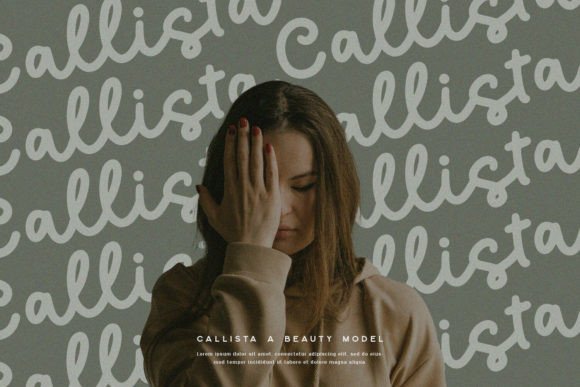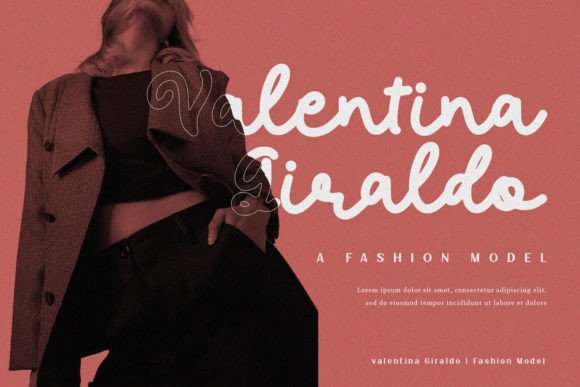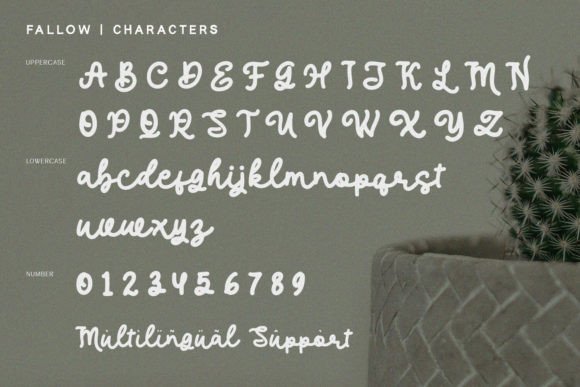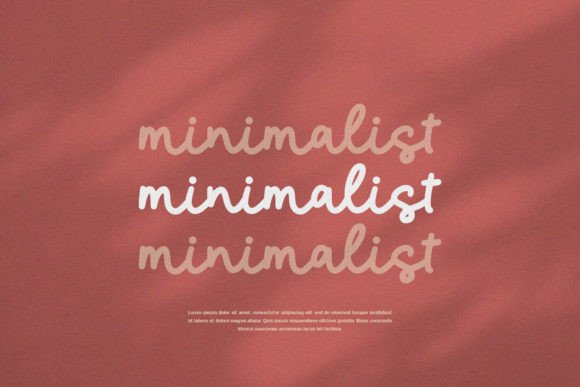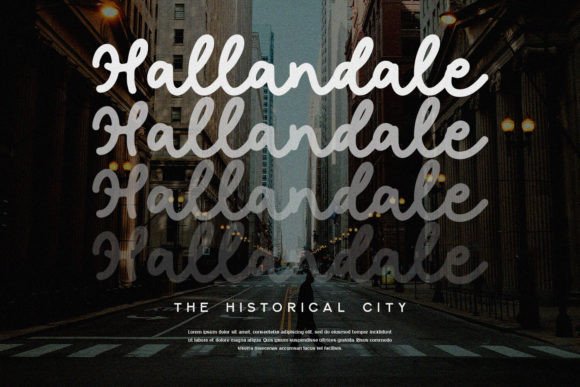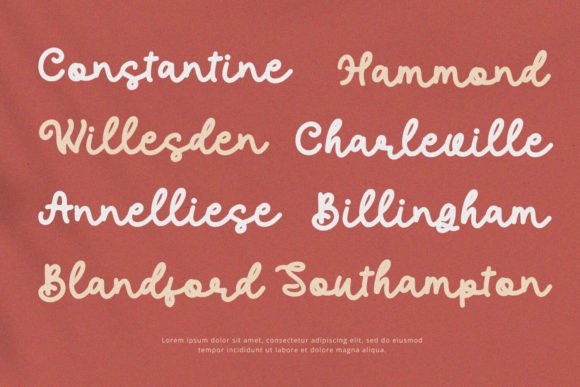
The Elusive Font: My Journey with Fallow
I still remember the frustration of working on a project, hours spent searching for the perfect font, only to come up empty-handed. My client wanted a script font that exuded elegance and modernity, and I was determined to deliver. That’s when I stumbled upon Fallow, a beautiful script font that has since become a staple in my design toolkit.
An Honest Review of Fallow
So, what makes Fallow so special? Here are a few things I love about this font:
- ✨ Elegant and modern feel: Fallow’s sleek lines and flowing curves make it perfect for a wide range of design projects.
- ✅ Highly versatile: From magazine covers to packaging, posters, and more, Fallow adapts seamlessly to different contexts.
- 💫 Beautifully crafted: The attention to detail in Fallow is impressive, with a clear focus on typographic excellence.
Of course, no font is perfect, and Fallow has a few quirks:
- 🤔 Limited character set: While Fallow has a wide range of characters, it may not have every special character you need.
- ⚠️ Occasional kerning issues: As with any font, you may need to adjust kerning to get the perfect spacing.
- Experiment with OpenType features, such as stylistic alternates, to add visual interest.
- Access OpenType features, such as glyphs and ligatures, to take your design to the next level.
The Story Behind Fallow
Fallow was designed by a talented typographer who sought to create a modern script font that would meet the needs of designers. With its elegant lines and flowing curves, Fallow has quickly become a popular choice for designers around the world.
| Font Name | Fallow Font |
| Author | alpapranastudio |
| What type of projects is Fallow best suited for? | Fallow is a versatile font that can be used for a wide range of projects, including magazines, packaging, posters, shopping bags, t-shirts, book covers, photography, and special events. |
| Is Fallow available in different weights or styles? | Currently, Fallow is available in a single weight. However, the designer may release additional weights or styles in the future. |